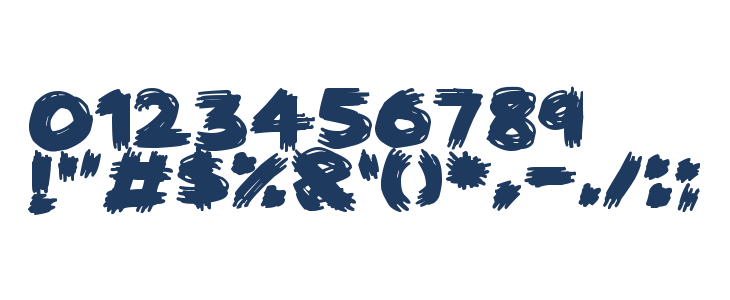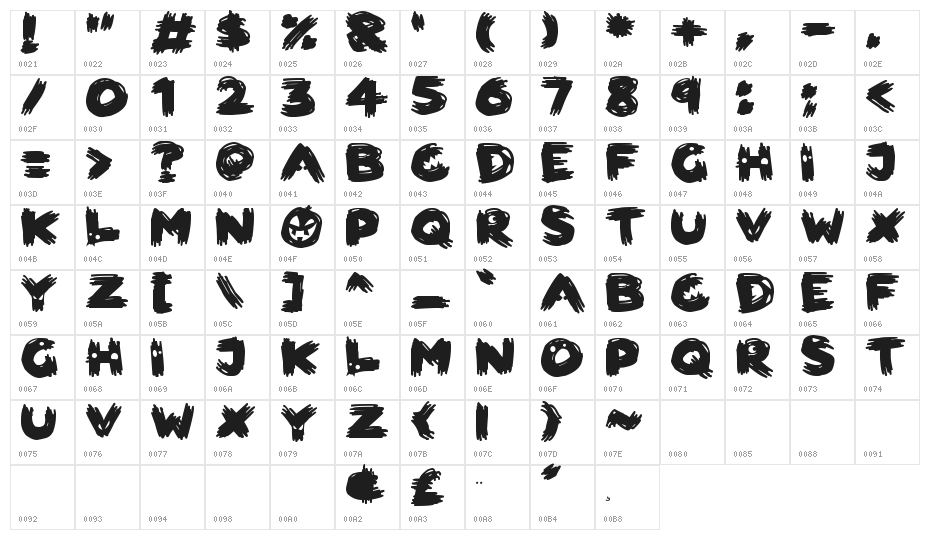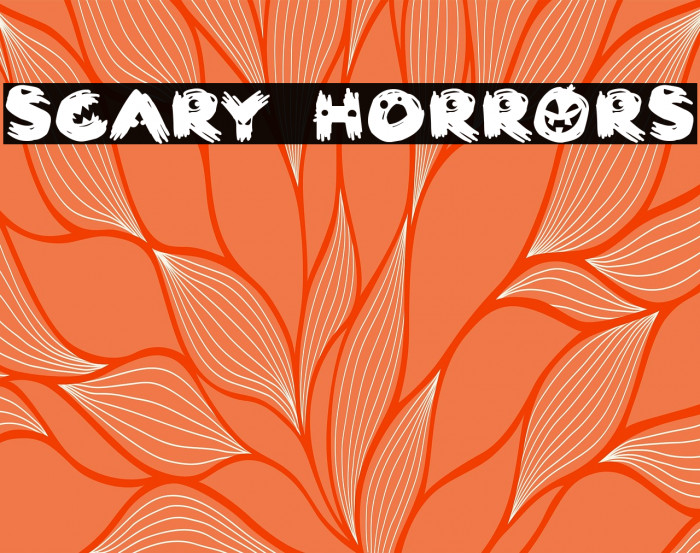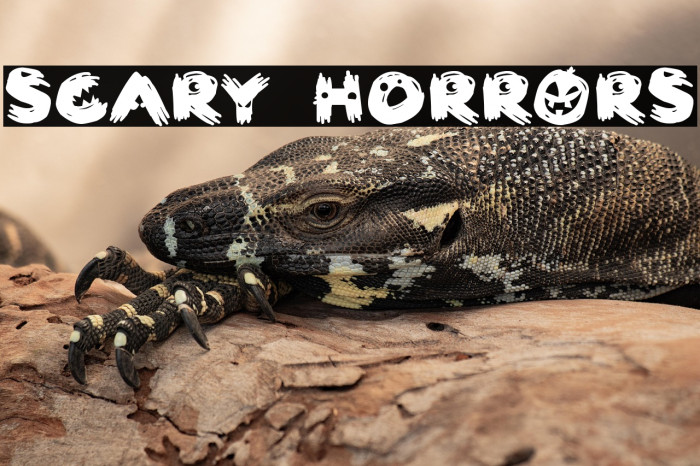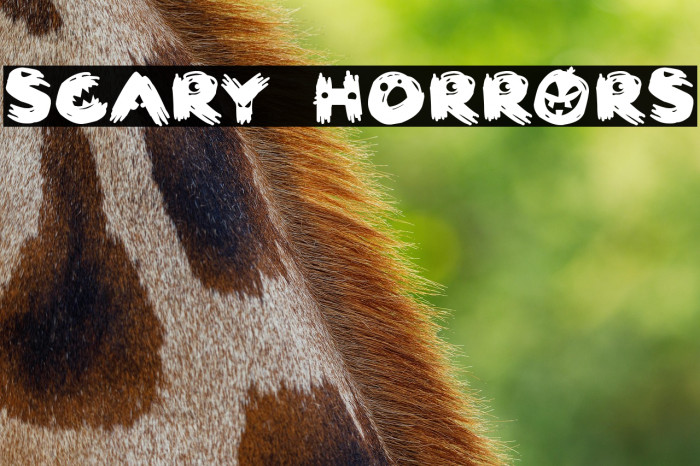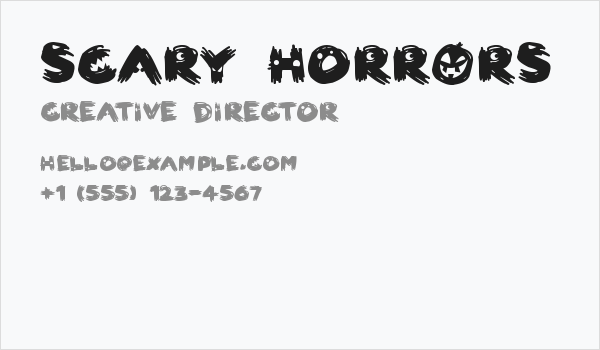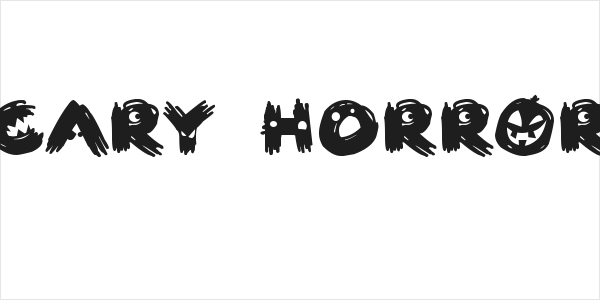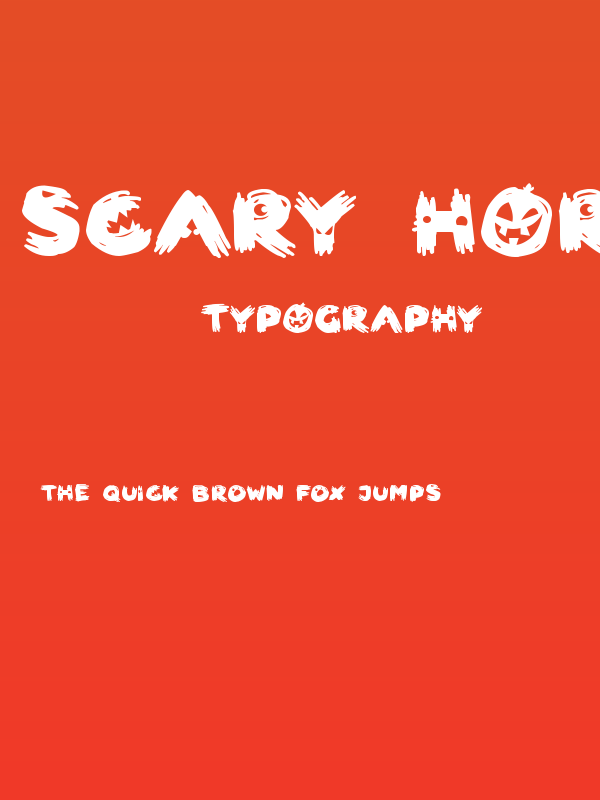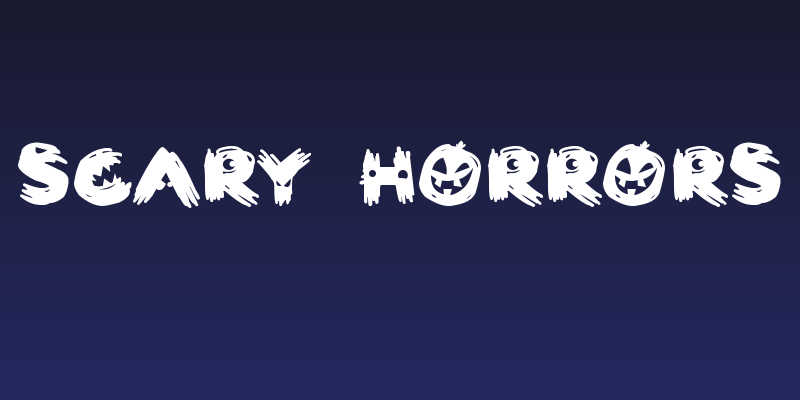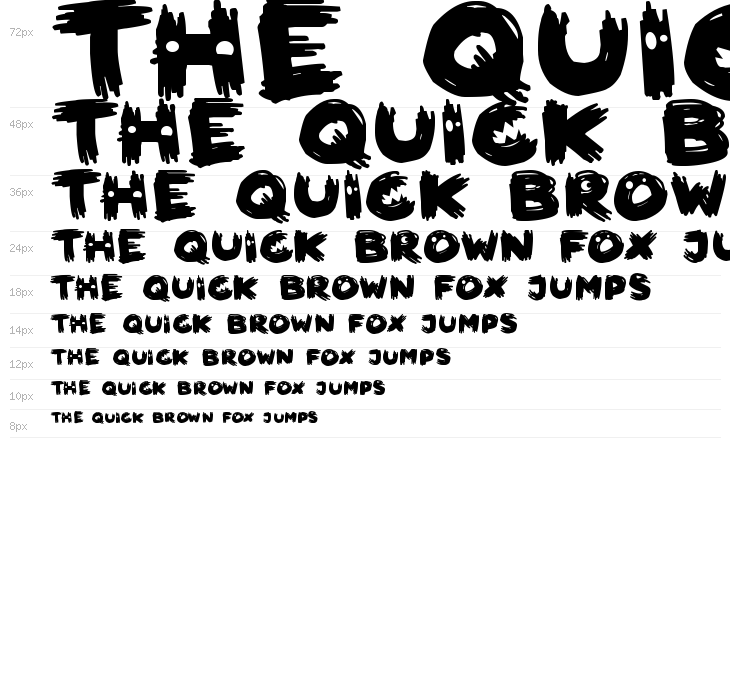
Scary HorrOrs Font
Scary HorrOrs Description
This font embodies a chilling and eerie aesthetic, perfect for horror-themed projects. The characters are bold and jagged, with irregular edges that give a sense of chaos and unease. Each letter appears as if it has been scratched or clawed, enhancing the spooky vibe. The uppercase and lowercase letters maintain a consistent style, while the numbers and special characters complement the overall horror theme. The font's unique design makes it ideal for creating an atmosphere of suspense and fear.